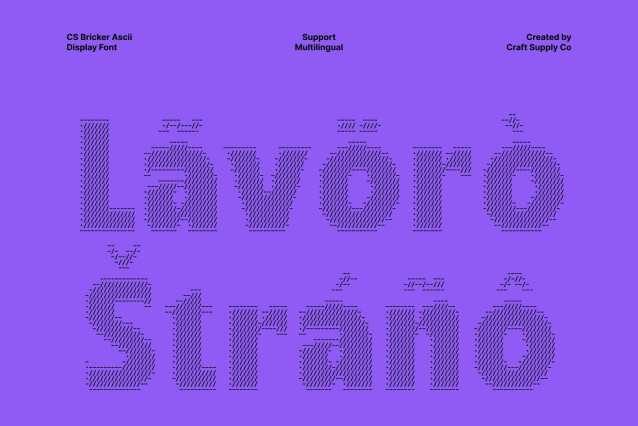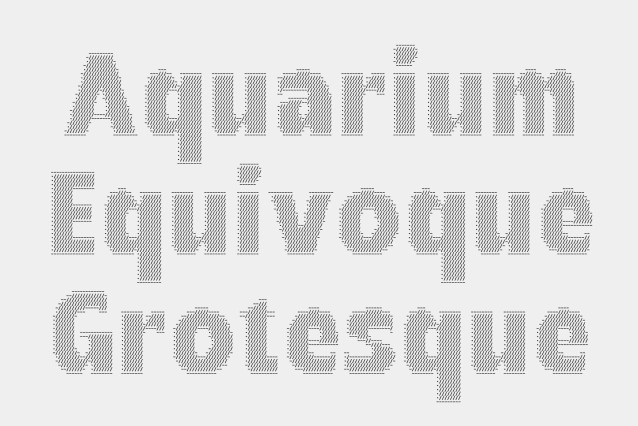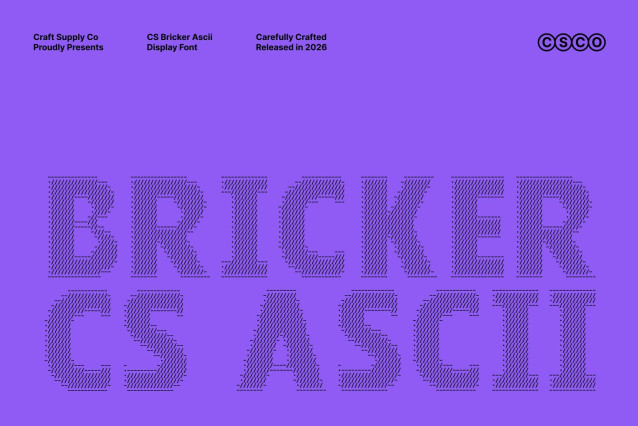
CS Bricker Ascii – Bold Font: Y2K Energy in Digital ASCII Form
Y2K Aesthetic Rebuilt with ASCII Characters
This transforms the vibrant spirit of Y2K typography into an expressive ASCII-driven display font. Built from carefully arranged characters and symbols, each letter becomes a decorative digital structure that echoes early internet visuals and futuristic tech culture. The bold shapes, playful curves, and dynamic proportions capture the nostalgic optimism of the 2000s while presenting it through a fresh and innovative typographic lens.
Retro-Futuristic Design with a Tech Edge
Inspired by chrome interfaces, neon lights, and cyber-inspired visuals, this font delivers a striking retro-futuristic presence. The ASCII construction adds a textured digital feel that strengthens its connection to terminal screens, glitch aesthetics, and early web culture.